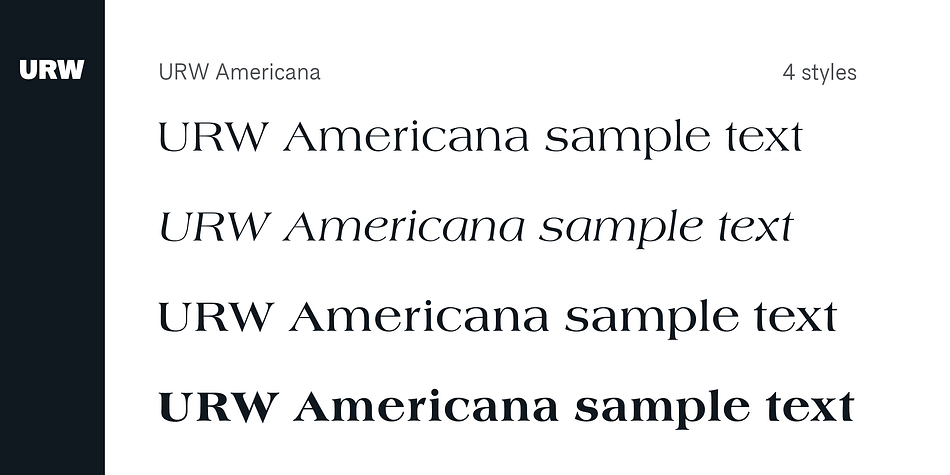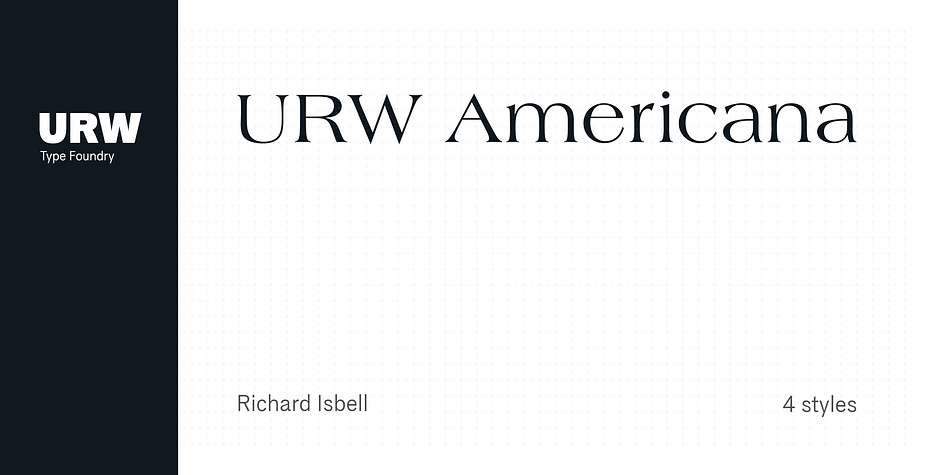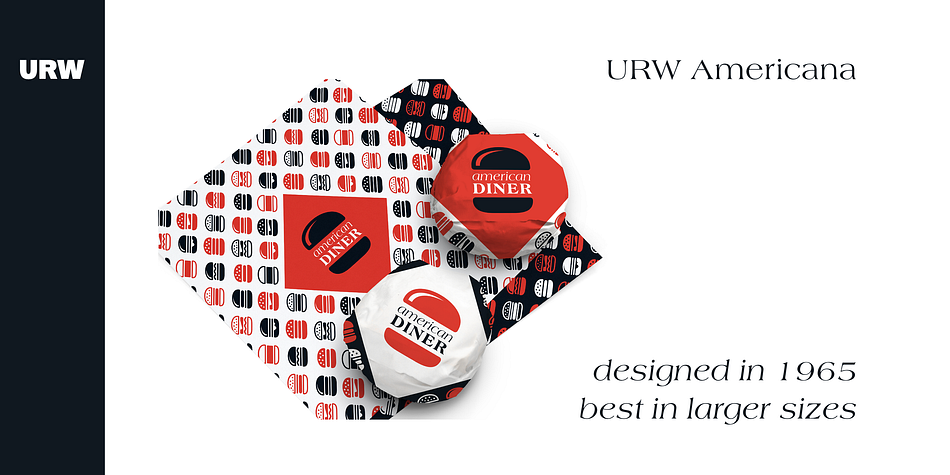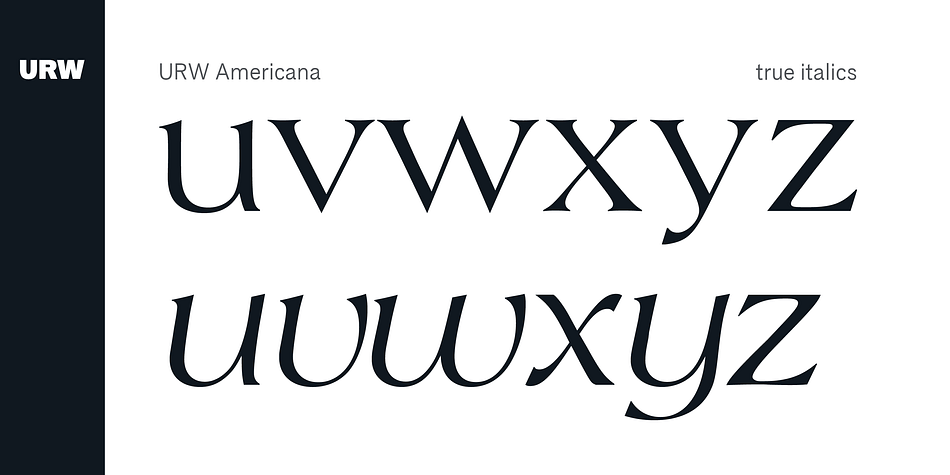
Designed by Richard Isbell, URW Americana is a serif font family. This typeface has four styles and was published by URW Type Foundry.
Americana was introduced by ATF in 1966, the foundry calling it later ‘the most successful face ATF has introduced in many years’. It is the result of an assignment to ‘return to elegance’, being designer Richard Isbell’s interpretation of that trend’. It features short, slightly concave serifs, short ascender, and capitals not quite as tall as ascenders, while being quite wide. Americana is best used for Display and Headline settings. It can even be used for small sizes, but only for short copy.